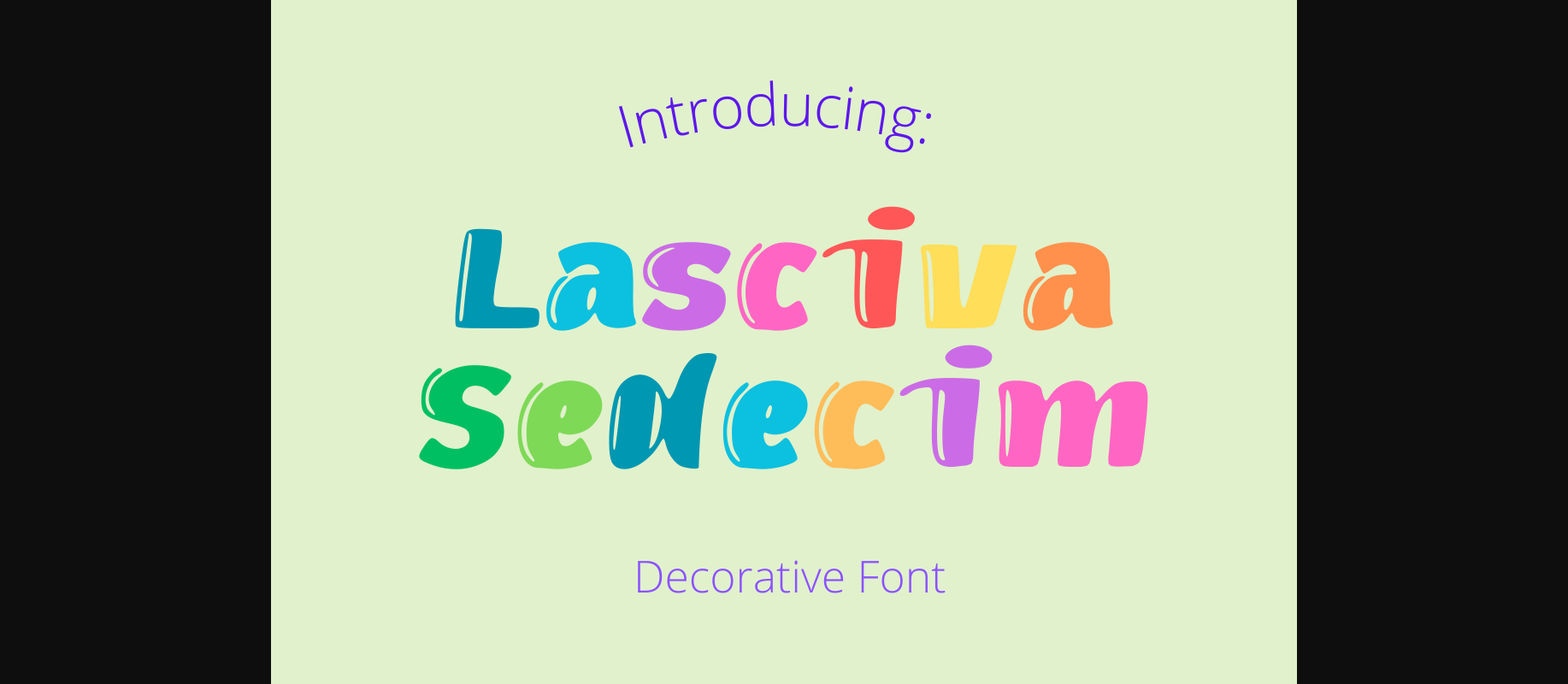
Lasciva Sedecim Font
About Lasciva Sedecim Font
Inspired by retro aesthetics, Lasciva Sedecim will bring a nostalgic touch to your designs, reminiscent of the 80s era. It’s ideal for projects that aim to capture a vintage feel, such as retro gaming graphics, album covers, and throwback-themed designs.